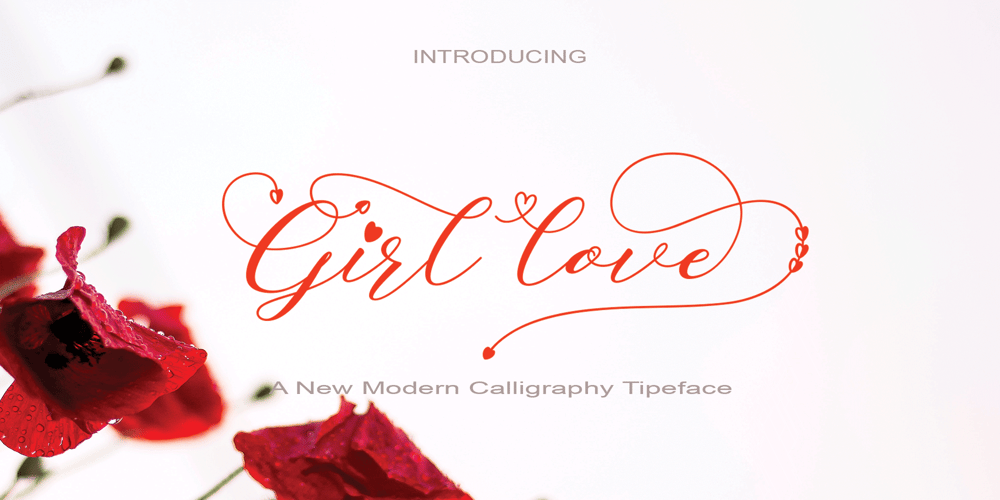
Girl Love Font Family was designed by Faizal Alfarabi and published by Alfaraby Studio. Girl Love contains 1 styles and family package options. INTRODUCINGGirl love a fonts of stylish calligraphy that have a varied base line, fine lines, classic and elegant touches. Can be used for various purposes. Such as title, signature, logo, wedding invitation, t-shirt, letterhead, nameplate, label, news, poster, badge etc.Girl love displays stylish calligraphy alternate characters. Includes initial letters and terminals, alternatives, ligatures and multiple language support.The Features of this fonts is:* Standart ligatures* Stylistic Alternates* PUA Unicode (Private Use Areas)* SwashPrograms that support in this font is a Adobe Photo Shop, Adobe Illustrator, Adobe Indesign, Corel Draw and Microsoft Office.OpenType features can be accessed by using OpenType smart programs such as Adobe Photo Shop, Adobe Illustrator, Adobe Indesign, Corel Draw and Microsoft Office. Can also be accessed through the character map.Special greetings for all, all of us all smoothly in running the routine.Thank you for your purchase!